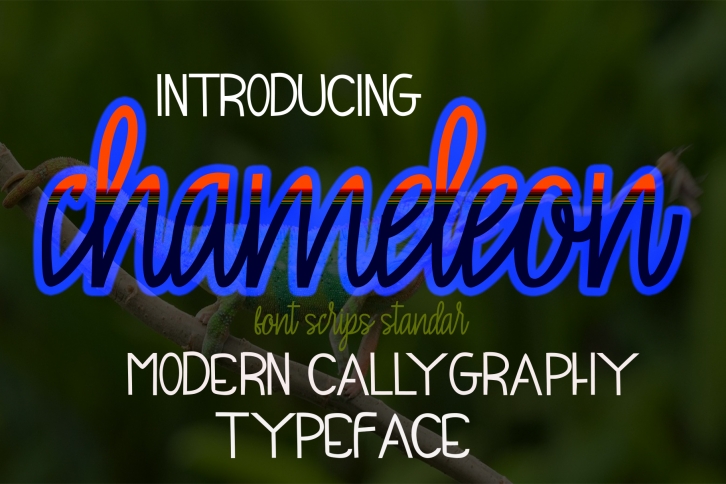
Chameleon is a beautiful font that was designed by Mahyud Creatif. It's a great choice for designers and creatives who need such a font. It was released on July 5, 2018 and the file size is 13.87 MB. Chameleon may give a more youthful, expressive and casual look to your project. It is a very beautiful, refined, elegant, and high-quality font.